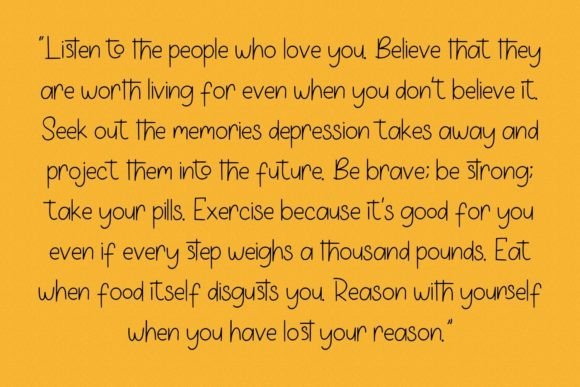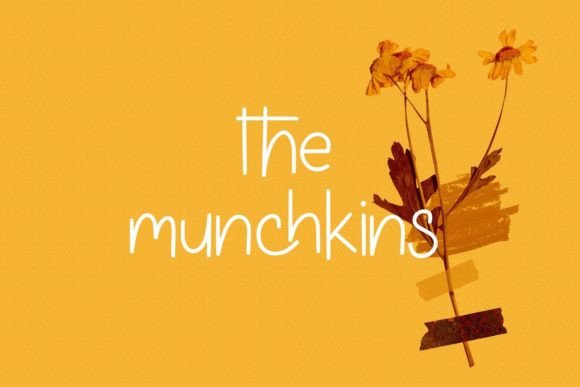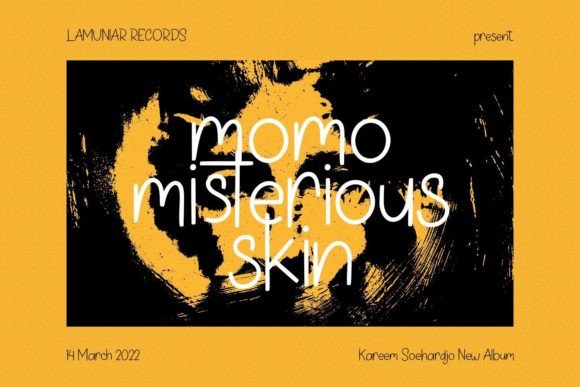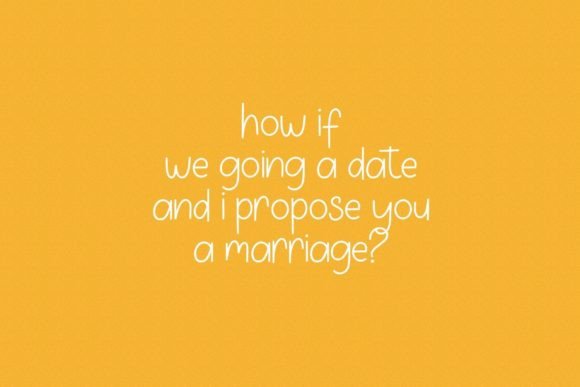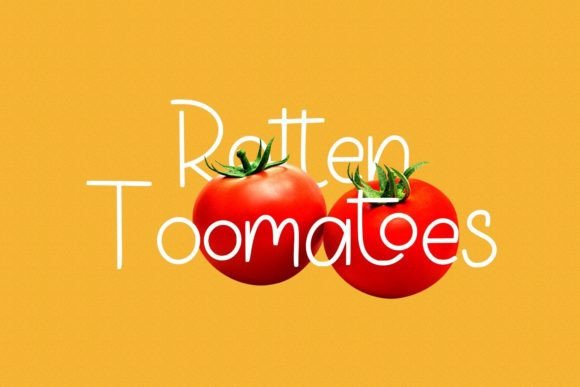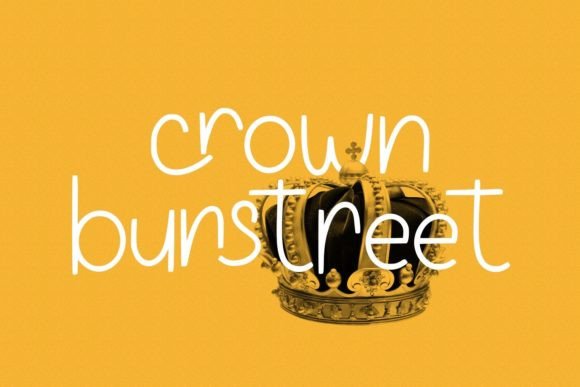
Introducing Frencheez Font: Elevate Your Designs with a Touch of Elegance
In the world of typography, fonts play a crucial role in conveying messages, evoking emotions, and adding personality to designs. For designers and crafters looking for a unique and stylish sans font, Frencheez is an excellent choice. This fancy handwritten sans font is designed to add a touch of elegance and whimsy to various design projects, from logos and social media graphics to movie titles, book covers, and more.
What Makes Frencheez Font Stand Out?
Frencheez font boasts several distinctive features that set it apart from other fonts. Its thin, consistent stroke gives it a sleek and modern look, while its fun characters and ligatures add a playful touch. The font’s sans-serif design makes it versatile and easy to read, whether used for short texts or long letters. This combination of style and readability makes Frencheez an excellent choice for a wide range of design applications.
Key Features of Frencheez Font
- Thin Consistent Stroke: The font’s sleek and modern appearance is characterized by its thin, consistent stroke, which gives it a sophisticated look.
- Fun Characters with Ligatures: Frencheez includes fun and playful characters with ligatures, adding a touch of whimsy to your designs.
- Versatile and Readable: The font is designed to be easy to read, making it suitable for both short and long texts, and can be used as a primary or secondary font.
- Sans-Serif Design: Frencheez’s sans-serif design makes it a great choice for pairing with both sans and serif fonts, offering flexibility in design.
Use Cases for Frencheez Font
Frencheez font is incredibly versatile and can be used in a variety of design projects. Here are some of the most popular use cases:
- Logo Design: Create stunning logos that stand out with Frencheez’s unique and stylish characters.
- Social Media Graphics: Elevate your social media presence with eye-catching graphics and posts designed with Frencheez font.
- Movie and Book Titles: Add a touch of elegance to movie titles, book covers, and other publishing materials with Frencheez’s sophisticated look.
- Secondary Text Font: Use Frencheez as a secondary font to add flair to your designs, pairing well with both sans and serif fonts.
Tips for Using Frencheez Font Effectively
To make the most of Frencheez font, consider the following tips:
- Experiment with Sizes: Frencheez looks great in various sizes, from large headings to smaller body text.
- Play with Colors: The font’s sleek design works well with a variety of colors, so don’t be afraid to experiment and find the perfect match for your design.
- Mix and Match: Try pairing Frencheez with other fonts to create a unique and visually appealing design.
Frencheez font is a stylish and versatile addition to any designer’s toolkit. Its unique blend of elegance and playfulness makes it perfect for a wide range of projects, from logos and social media graphics to movie titles and book covers. With its thin, consistent stroke, fun characters, and ligatures, Frencheez is sure to elevate your designs and make them stand out. So why wait? Download Frencheez font today and start creating stunning works of art!
Whether you’re a professional designer or a crafter looking for a unique touch, Frencheez font is an excellent choice. Its ease of use, versatility, and stylish design make it an invaluable resource for anyone looking to add a touch of elegance and whimsy to their designs.